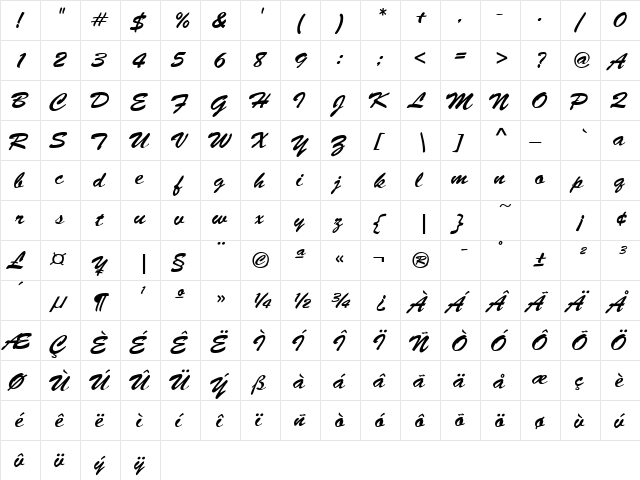
Brush Normal Font Preview
Brush Normal
Brush Normal Font Details
Design Context for Brush Typeface
Brush flows with the natural rhythm of handwritten lettering, making it ideal for designs that call for warmth and personal expression.
Font Pairing: Combine Brush with a simple geometric sans for maximum contrast — the tension between flowing curves and clean structure is a classic typographic pairing.
Pro Tip: Pair Brush with a clean sans-serif for supporting text. The contrast between fluid script and geometric structure creates an elegant typographic hierarchy.